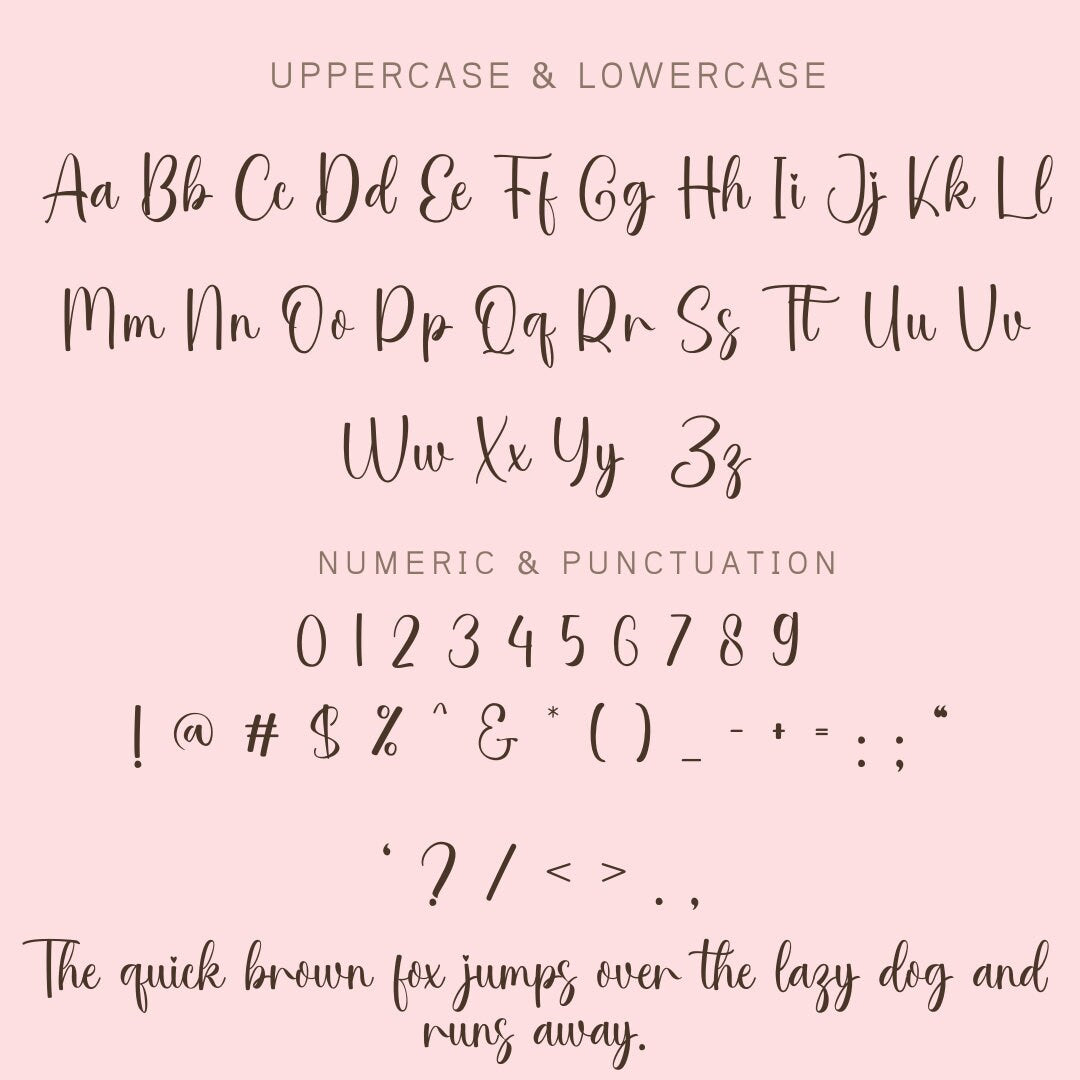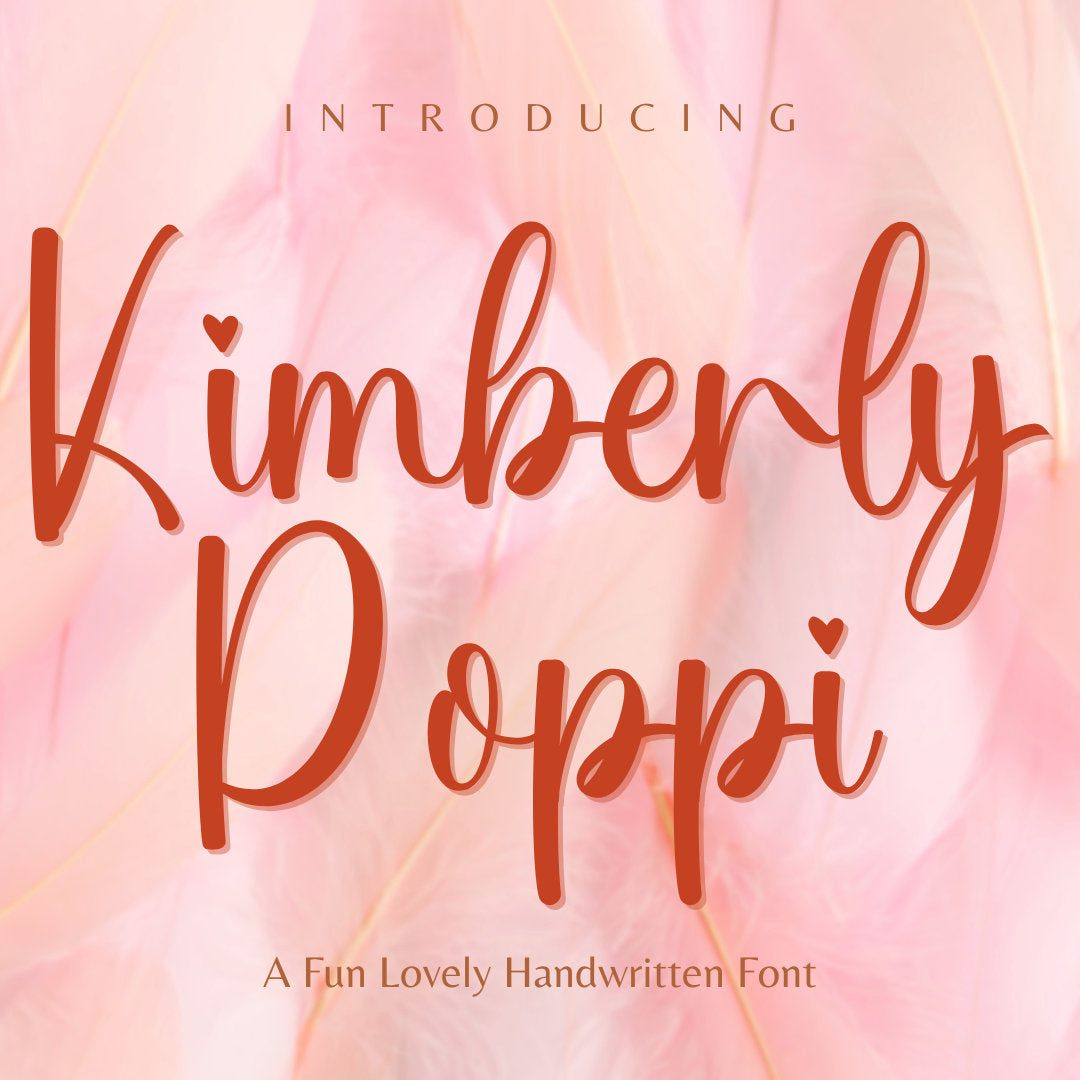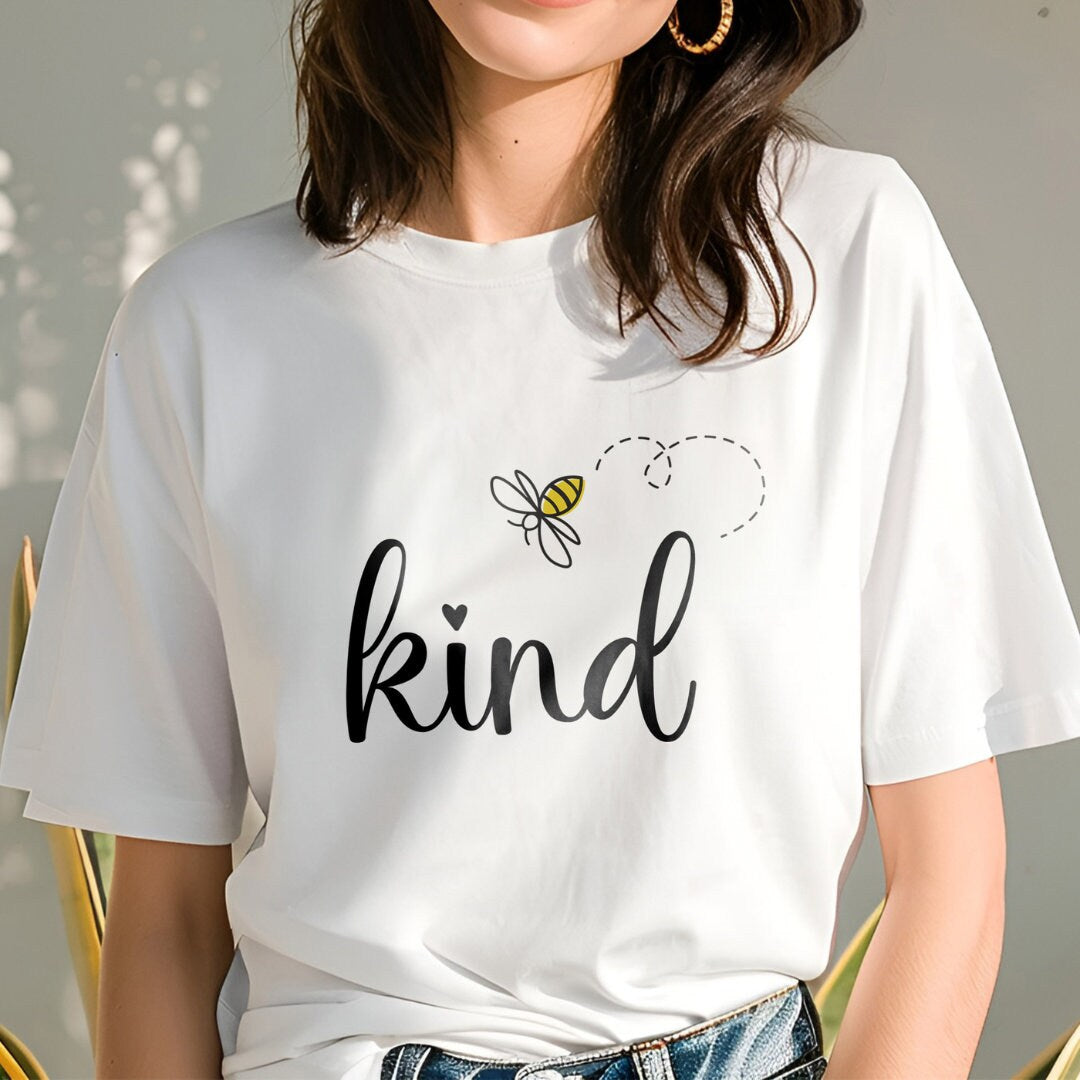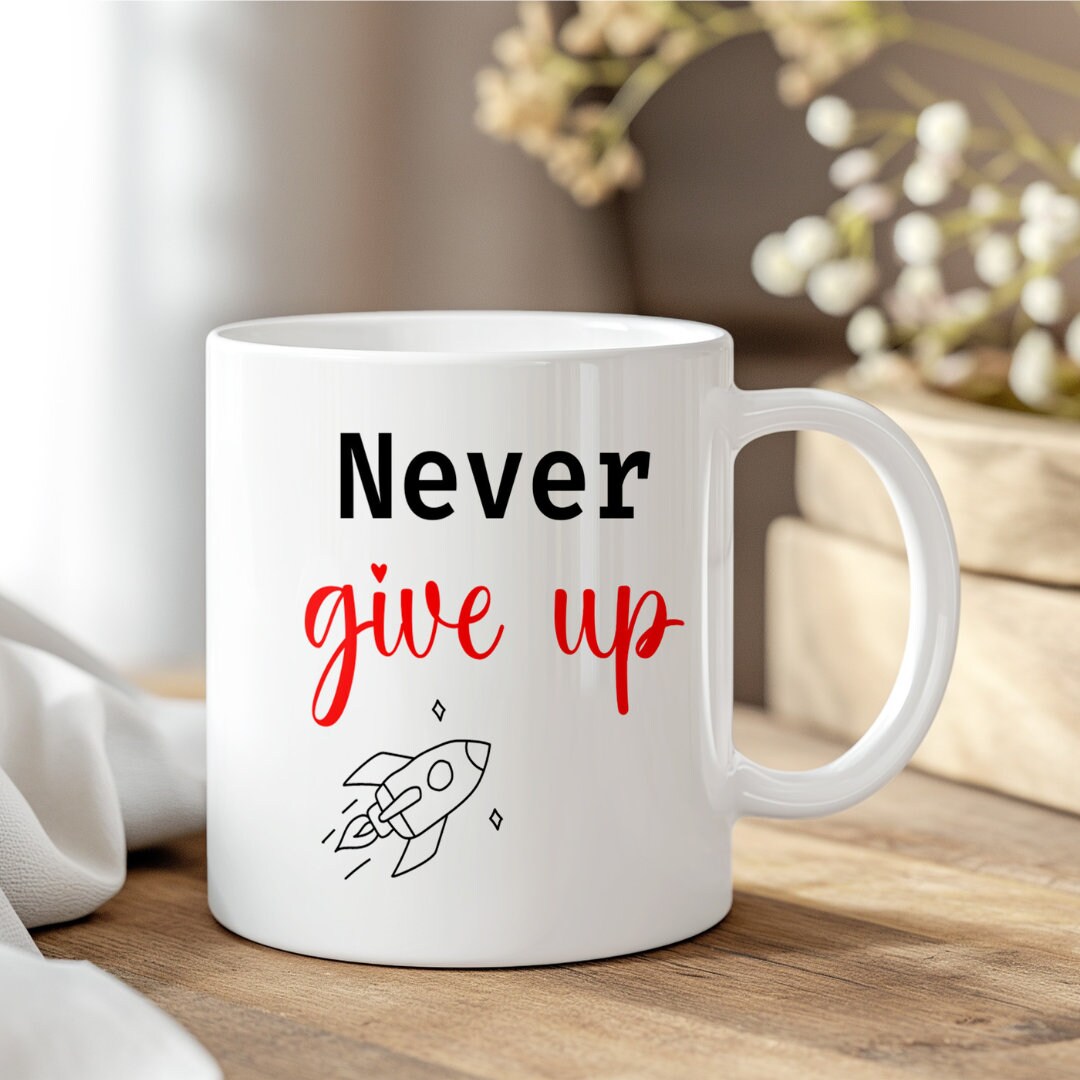
Kimberly Poppi Handwritten Signature Font with Heart Script Elements
A playful, hand-drawn signature font with heart-accented script strokes for polished branding and sweet invitations. Perfect for Cricut, Silhouette, Procreate, and modern design projects, it keeps lettering personal and professional. Delivered as an OTF file with clear installation instructions so setup is fast and fuss-free. Commercial use is allowed with unlimited projects and sales to support your small-business hustle. Files are provided as a single ZIP download that opens instantly after purchase for immediate creativity. The flowing baseline and quirky heart details make logos, packaging, and social posts pop with charm. This font balances neat letterforms with playful swashes to stay readable at small sizes and dramatic at large. Restrictions prevent file redistribution or resale, keeping the typeface exclusive and protected. Works seamlessly in popular design apps and cutting machines when OTF support is enabled. Small file size and simple licensing mean you can experiment boldly without extra paperwork.
Font Style Handwritten signature script with heart accents and decorative swashes
Character Set Basic Latin: upper & lower case, numerals, punctuation, common diacritics